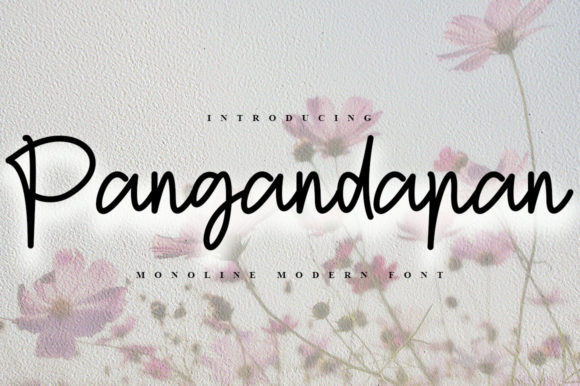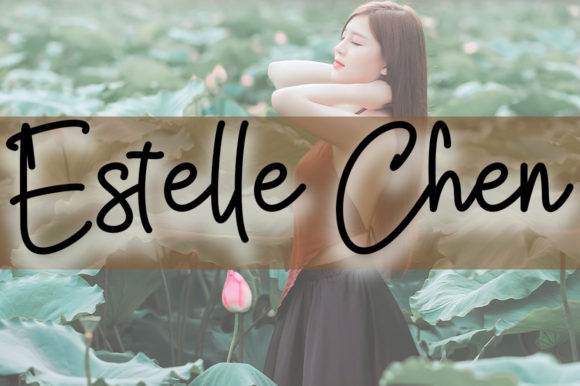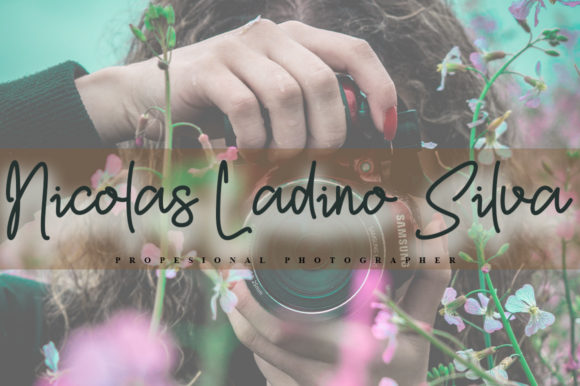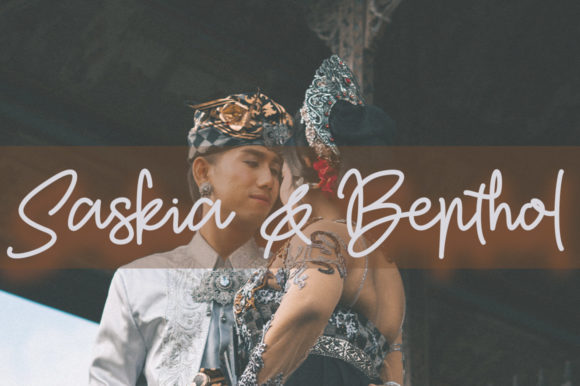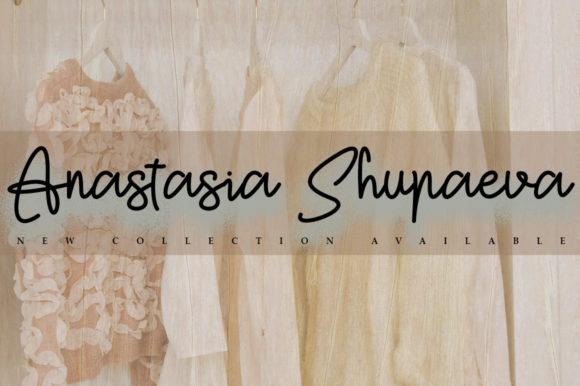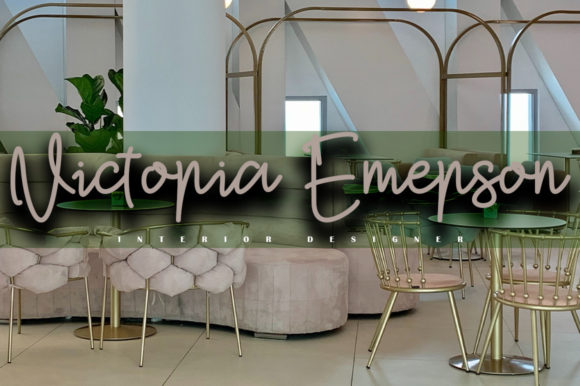
Pangandaran Font
About Pangandaran Font
Pangandaran is a beautiful and subtle handwritten font with a unique feel. It will add a spark of luxury to any design project you wish to create.